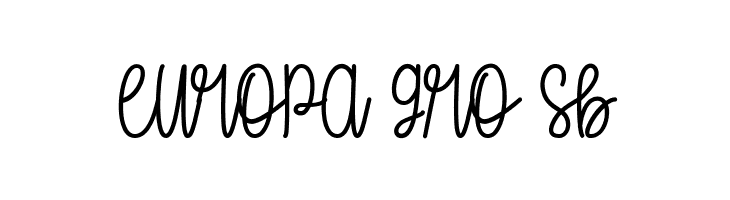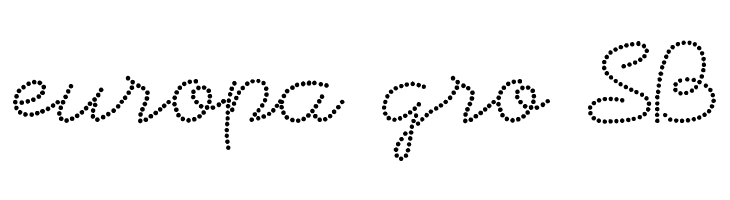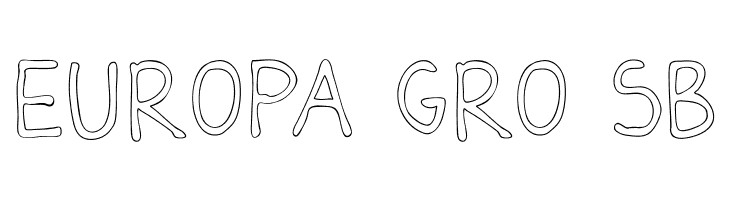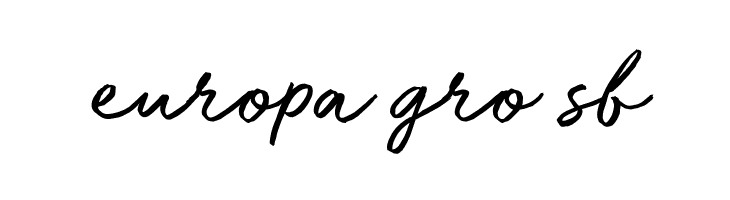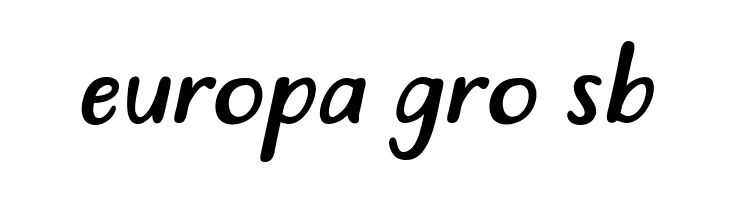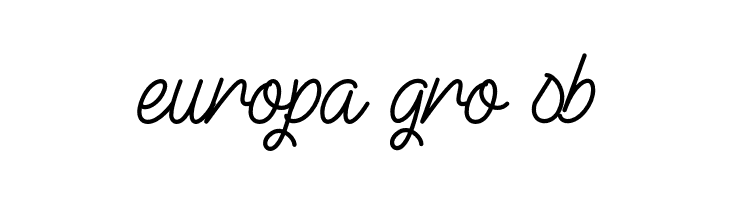
A playful, handwritten font with smooth, flowing curves and consistent stroke width.
A playful, handwritten cursive font with fluid, interconnected strokes.
A bold, cursive script font with dynamic, interconnected letters and decorative flourishes.
A playful, hand-drawn outline font with a casual and artistic style.
A lively and fluid handwritten font with a natural, spontaneous style.
A dynamic, italicized handwritten font with smooth, flowing strokes.
An elegant script font with flowing, ornate strokes and graceful curves.
A bold, cursive font with a playful, handwritten style.